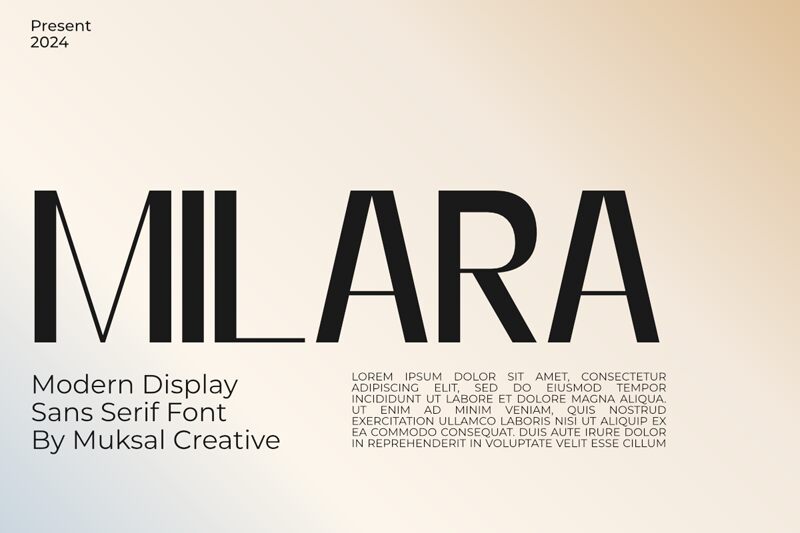
Milara font created by Muksal Creative is a free sans serif font characterized by a minimalist style. The design is clean and precise showing the serious yet friendly character of the font. Although the letters appear thin, they have the necessary structure to be clearly legible in small and large font sizes. Milara is nicely balanced in every aspect – very few experimental attempts are evident through its geometric strokes and construction.
Milara is an extremely versatile font. Use it for branding, editorials, web and mobile app designs, interface designs, and any type of online or printed marketing material. Pair it with a few other scripts, serif, or slab fonts; you might be surprised by the final combinations for your project.